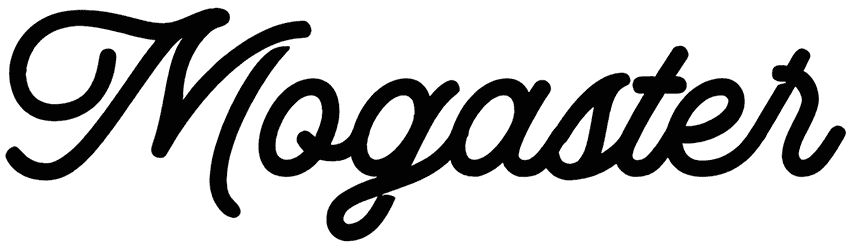
Mogaster Font
When you’re in the mood for creating some eye-catching calligraphy, branding, cards, flyers, or other similar tasks, Mogaster, like other script fonts, can help you out.
This script font has a handwritten, natural look that makes your design more memorable and enjoyable, but you have to be aware that it is a bit unreadable. Just try it out and see if it works to wow your audience. You can discover similar fonts on our website.